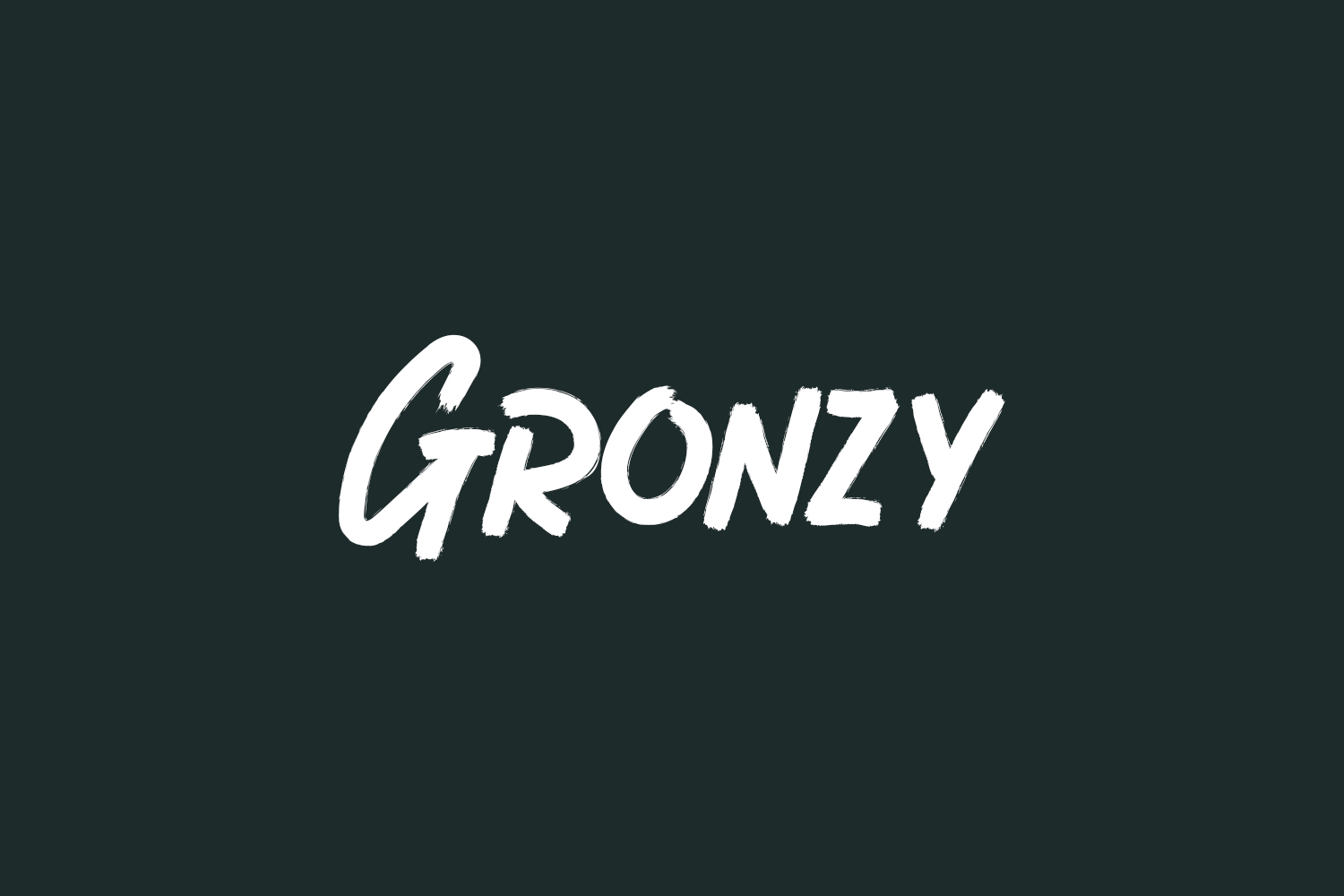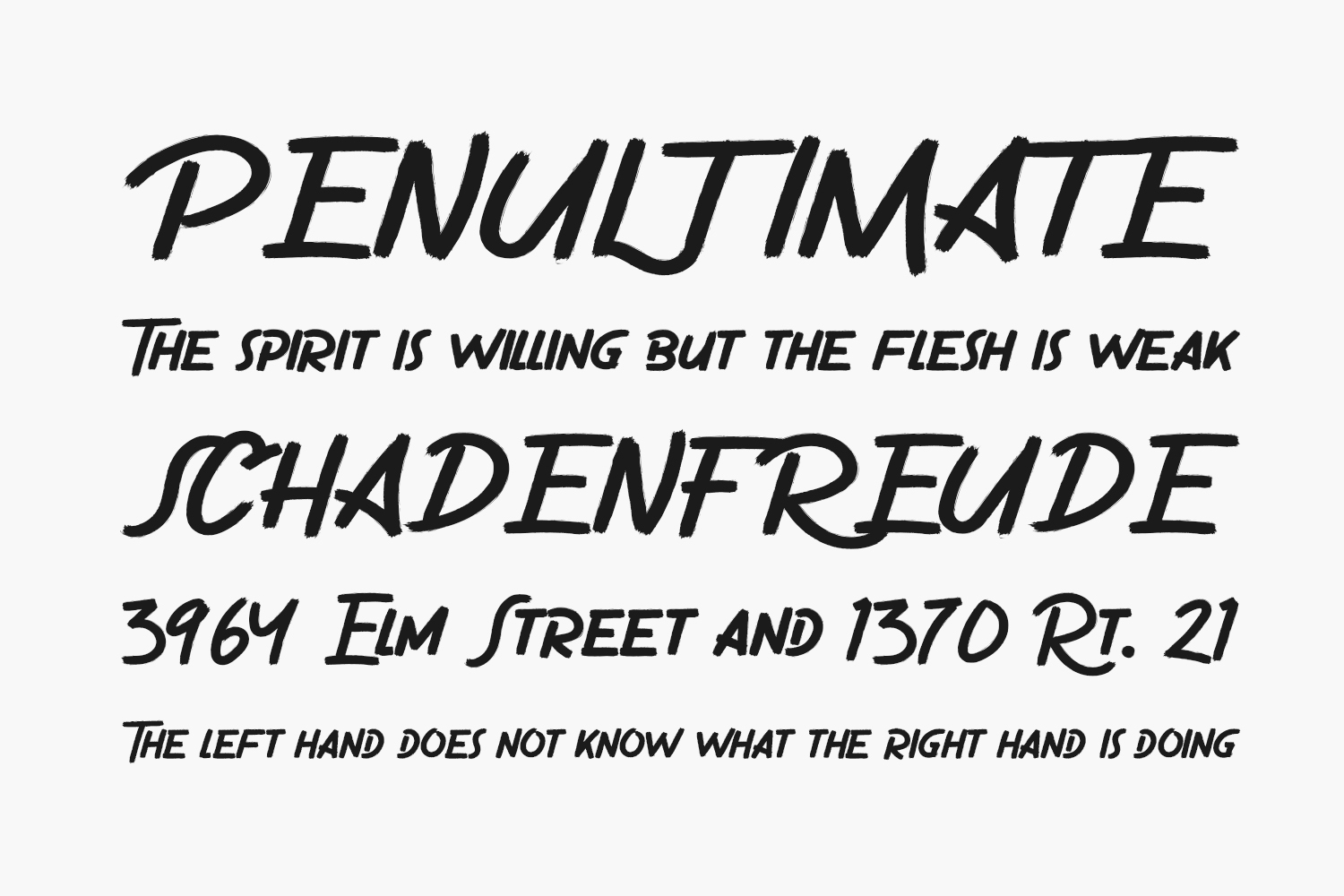
Gronzy Free Font is a bold and incredibly authentic display font. It sends out a positive vibe and as a result, it matches a wide range of designs. Add this lovely font to your creative ideas and notice how it makes them stand out. Gronzy Free Font was designed by Typotopia Studio and is free for personal use only. Please purchase the full version for commercial use.